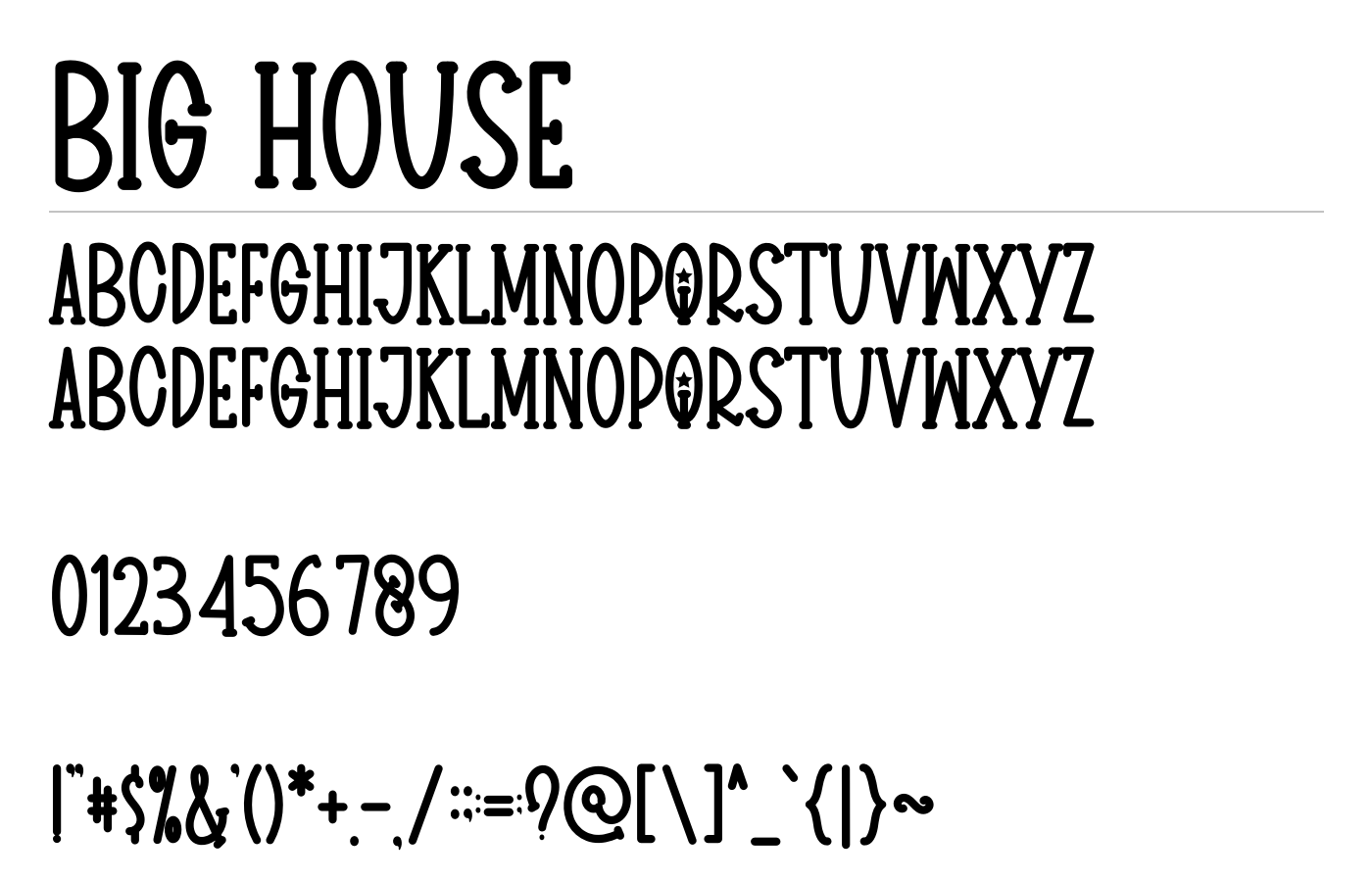
Big House is a playful, narrow serif font with a quirky, hand-drawn feel characterized by rounded terminals and unique, decorative elements like star-shaped details in characters. Its tall, condensed letterforms and moderate stroke contrast give it a lively, vintage-inspired personality well-suited for fun, casual branding, posters, and headlines where a distinctive, friendly style is desired. This font works best where an approachable yet charming look is needed, adding character to creative projects without sacrificing readability.
BIG HOUSE Font